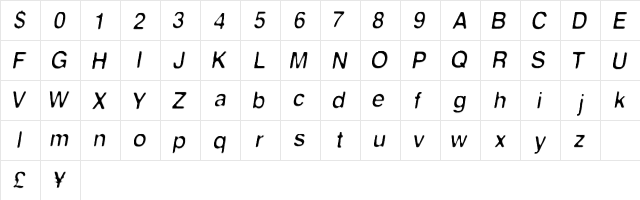
FirstContact Regular
| Foundry | Xerographer Fonts |
| Designer | Xerographer Fonts Max Infeld |
Design Context for FirstContact Typeface
FirstContact takes a measured approach to typography — its balanced proportions and neutral character make it a reliable workhorse for both digital and print work.